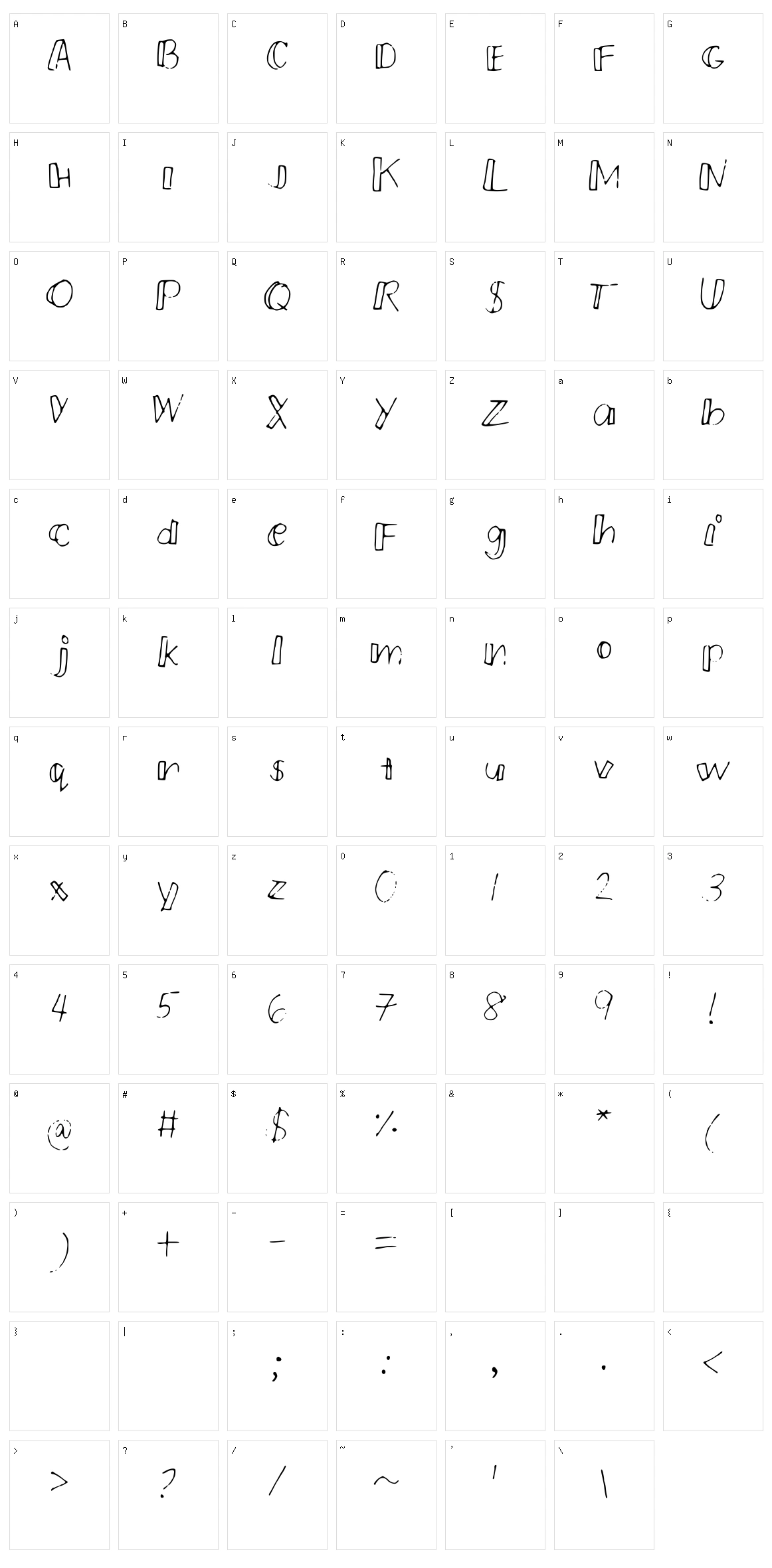
The free font PM Small Crew is carefully designed by P Mdz, showcasing a thoughtful balance of creativity and usability and falls under the Cartoon font style. When you download the ZIP file, it contains only 16.16 KB of font files, making it lightweight and quick to download. Please review the license details below to understand permitted usage and distribution rights. If license information is not available, we recommend using this font for personal projects only or contacting the author directly for commercial usage permissions.